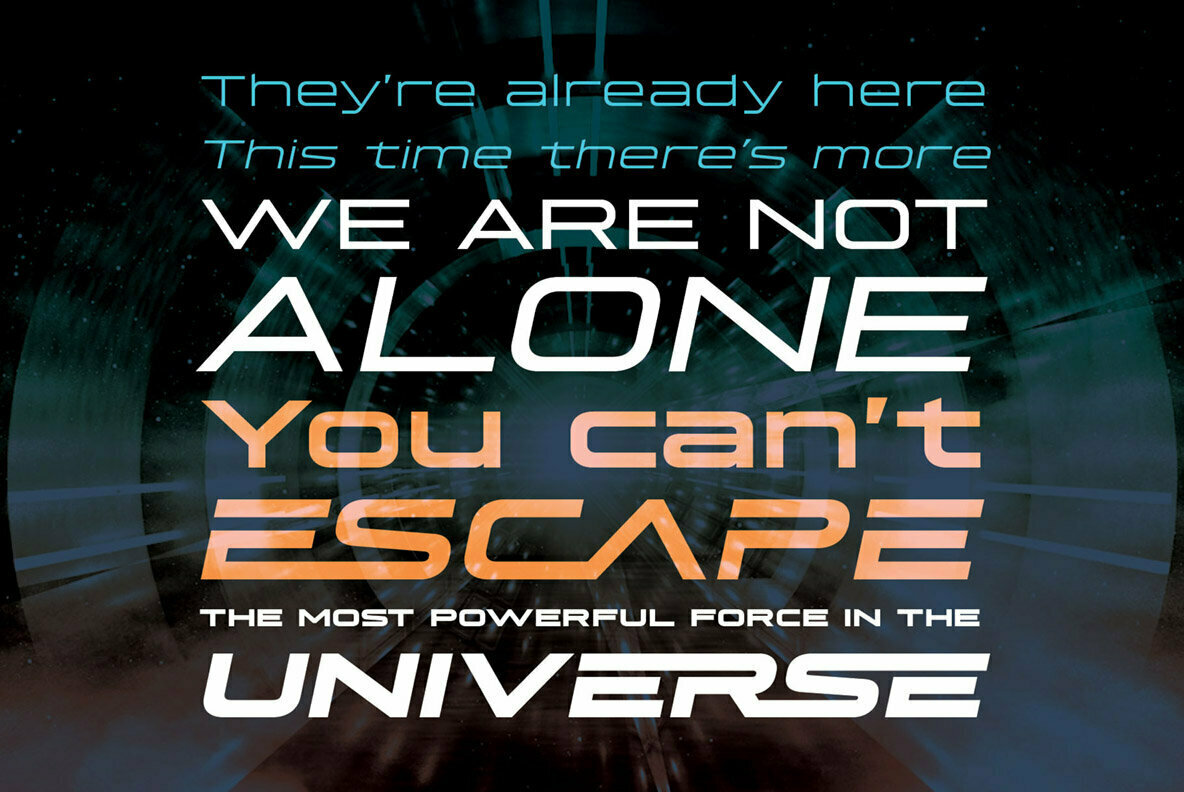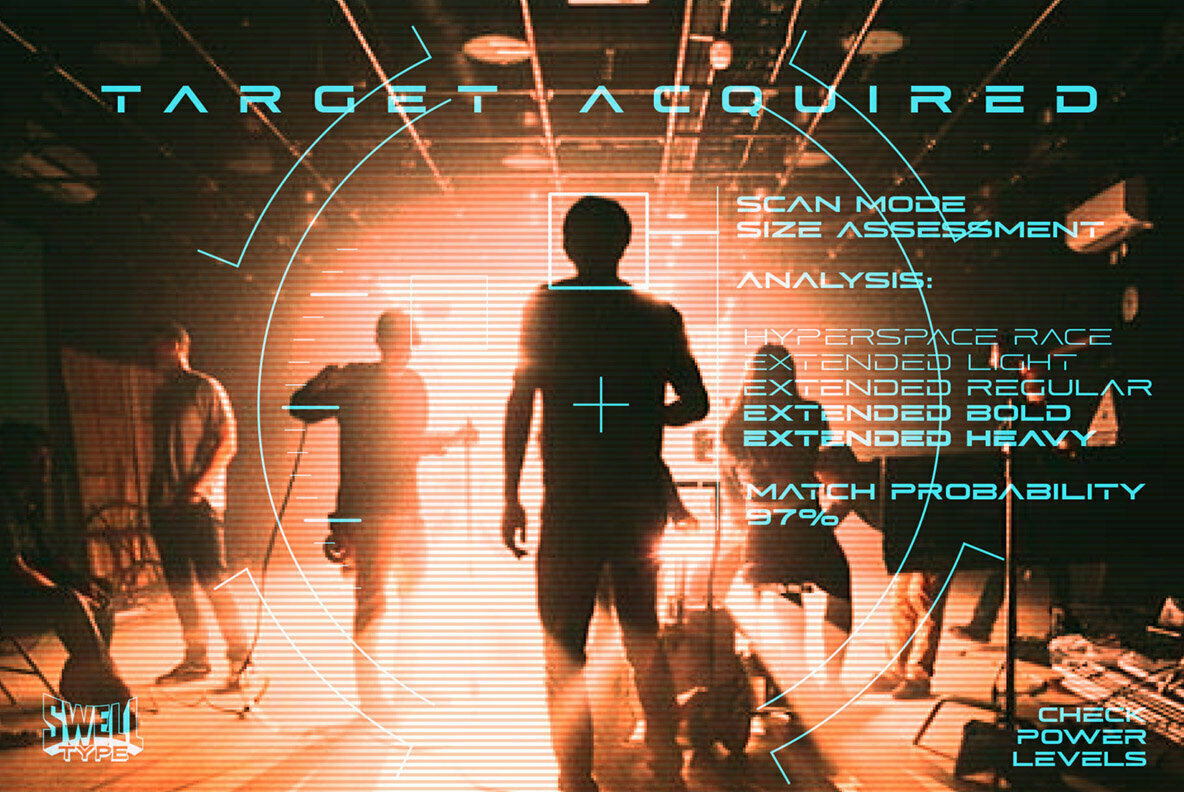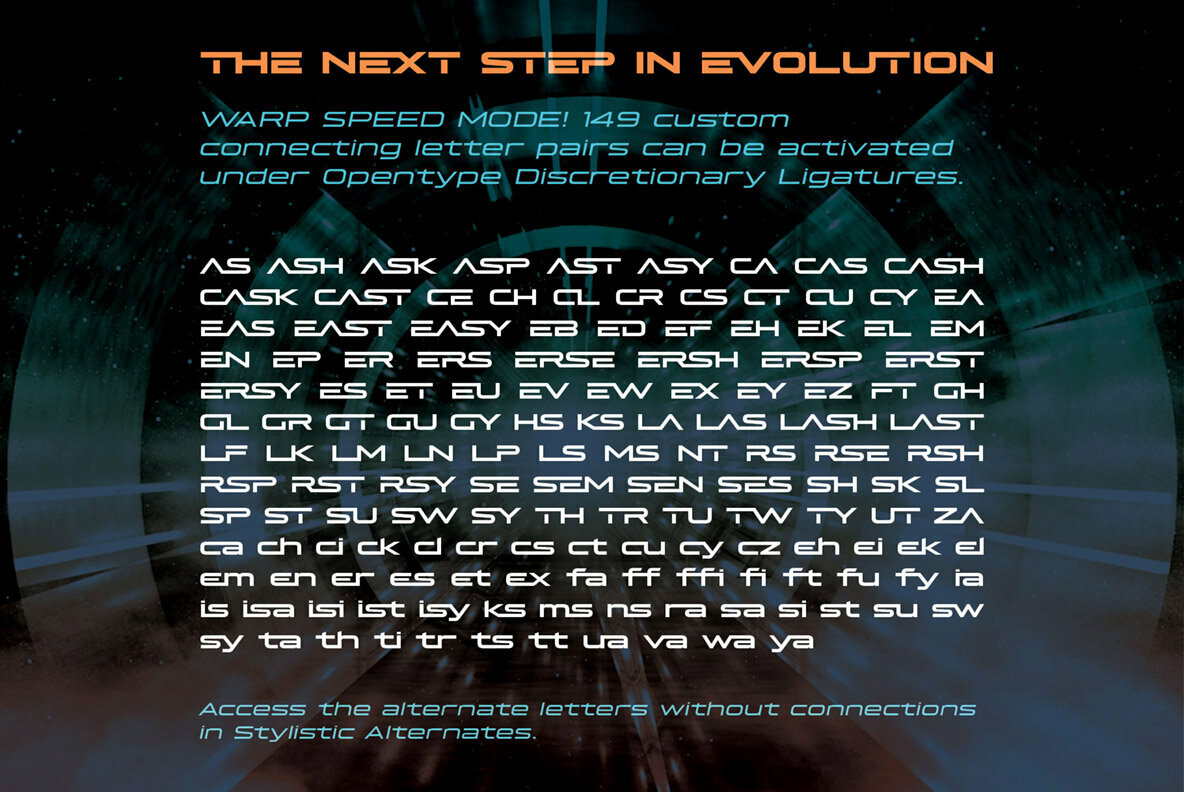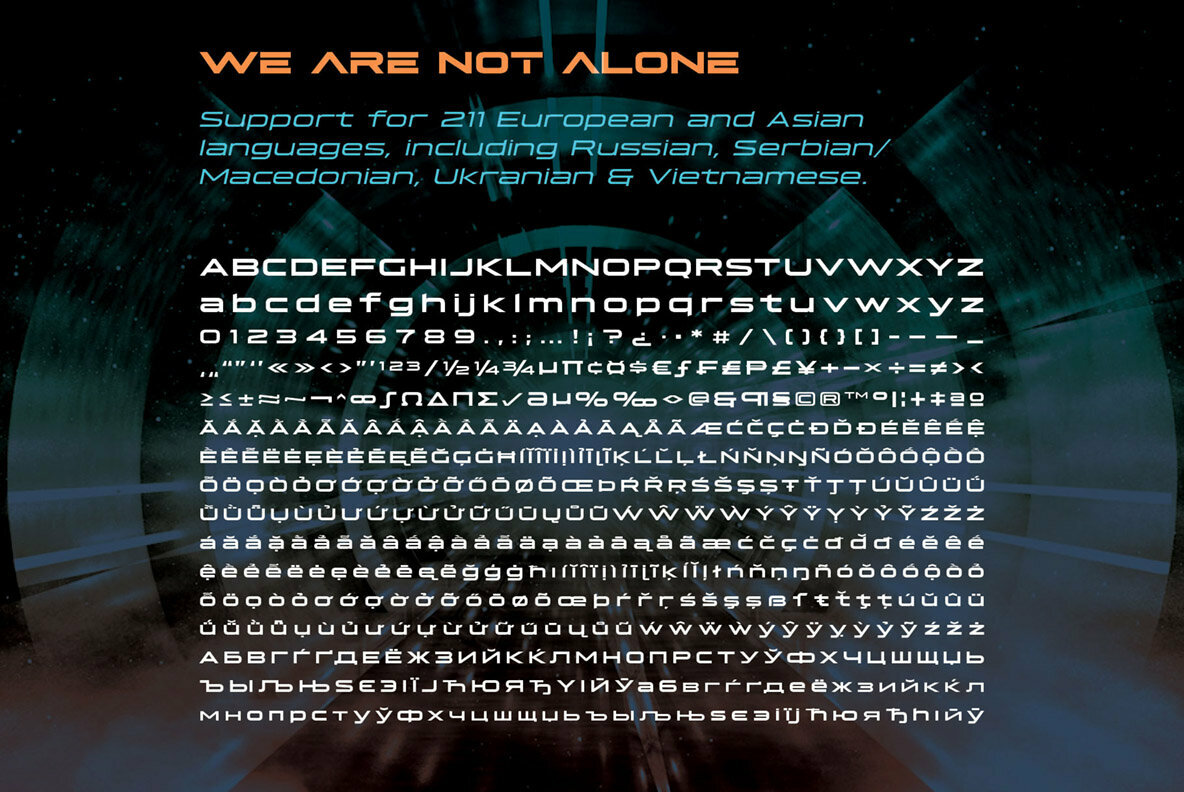
Hyperspace Race Extended Font
It had to happen: Swell Type has reached into the future and returned with the ultimate hyper-extended sci-fi font: HYPERSPACE RACE!
Hyperspace Race Extended boldly goes where no sci-fi font has gone before…
• Four weights: Light, Regular, Bold & Heavy with matching italics
• WARP SPEED mode: 149 custom connecting letter pairs
• Support for over 200 European & Asian languages, including Russian, Serbian/Macedonian, Ukranian & Vietnamese
It's quite possibly the most powerful font in the universe.